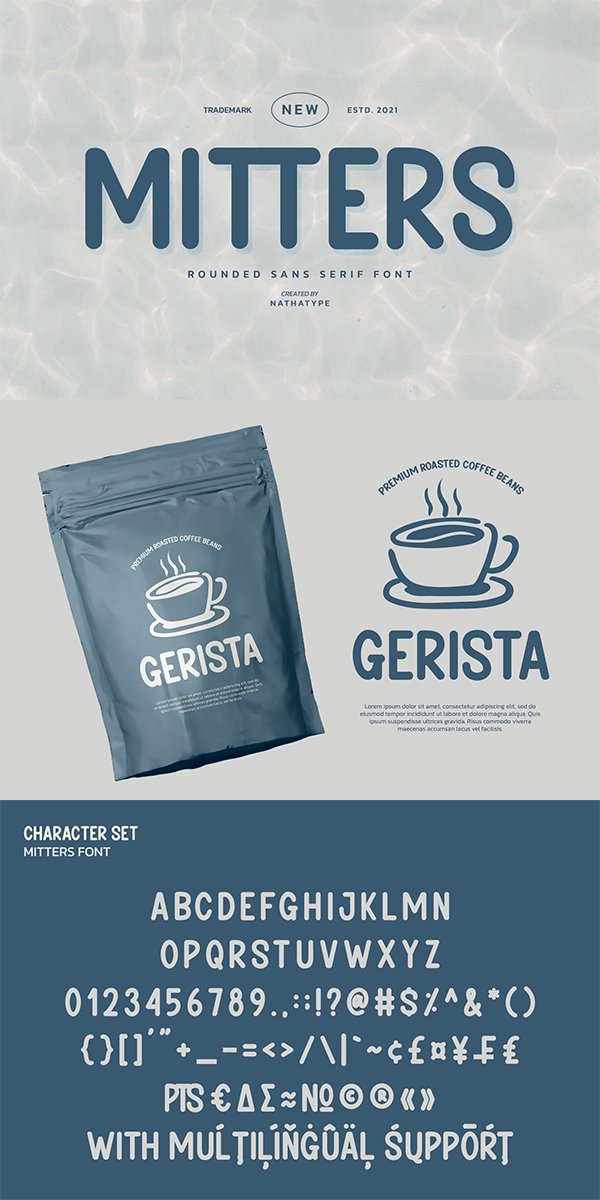
MITTERS Font
About MITTERS
Mitters-A Sans Serif Font
Mitters is a captive font designed with rounded outlines and fat strokes to bring your branding to life and add a touch of vintage, fun, but still stylish. This font features thick and angular letters that easy on the eyes and nice to look while it’s also easy to read. Perfect to create amazing headings, logos, menus, social media graphics, and many more.
Our font always includes Multilingual Support to make your branding reach a global audience.